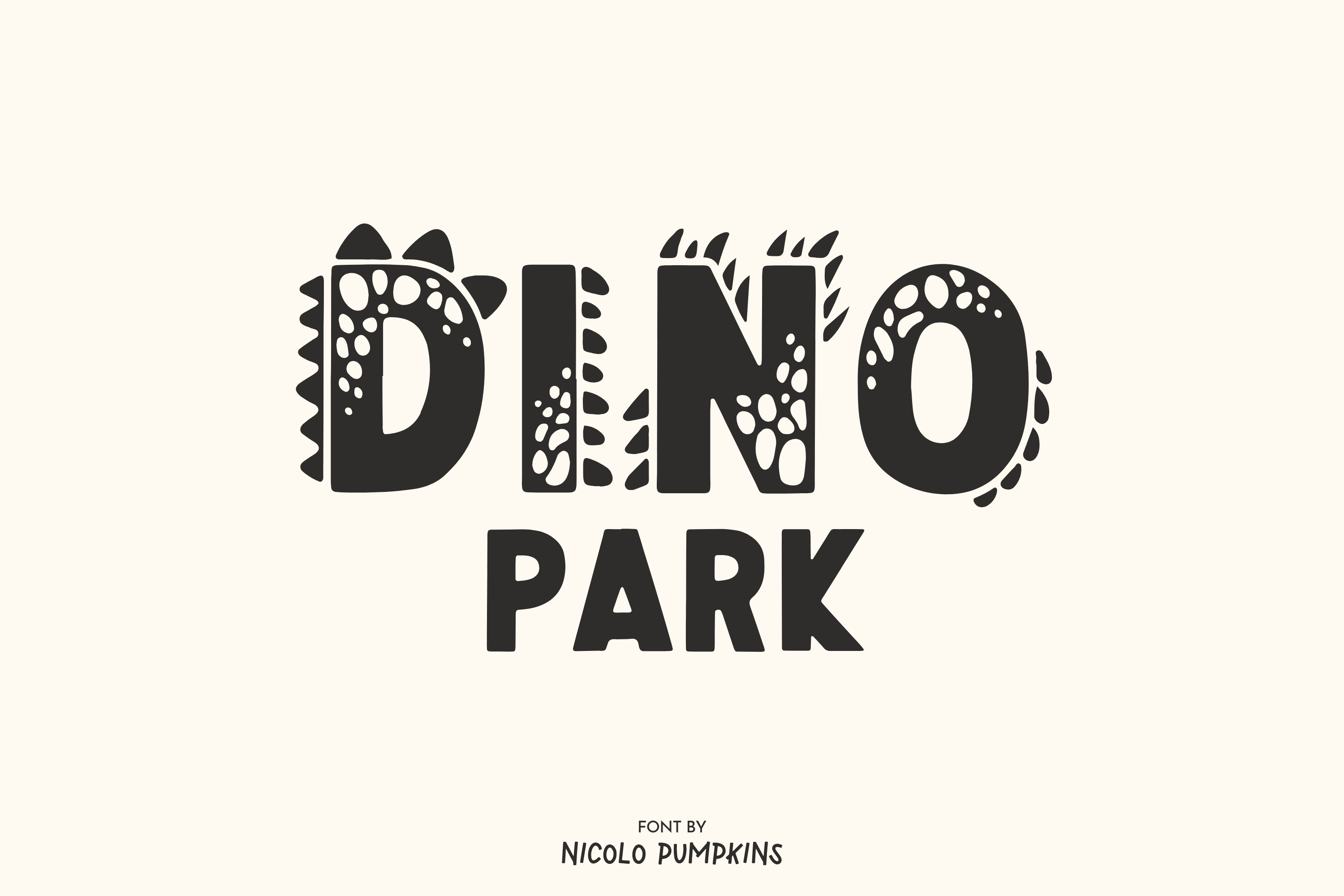
DINO PARK Font
DINO PARK FONT A cute fun dinosaur silhouette font with style
✦ DINO PARK FONT is perfect for baby, kids and family design on: shirts, mugs, logos, wedding invitations, poster, greeting cards, social media, branding, Procreate, Cricut and more!